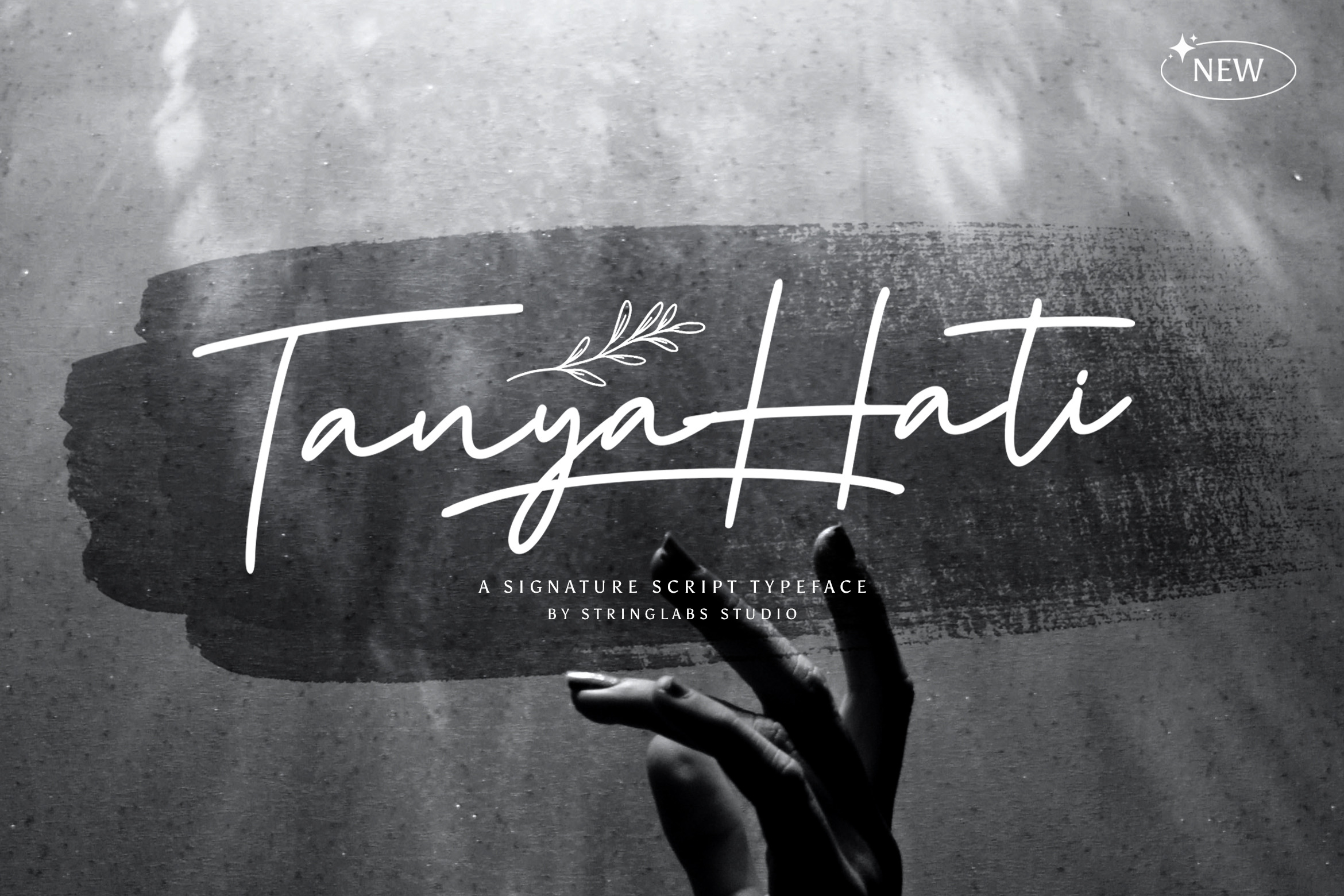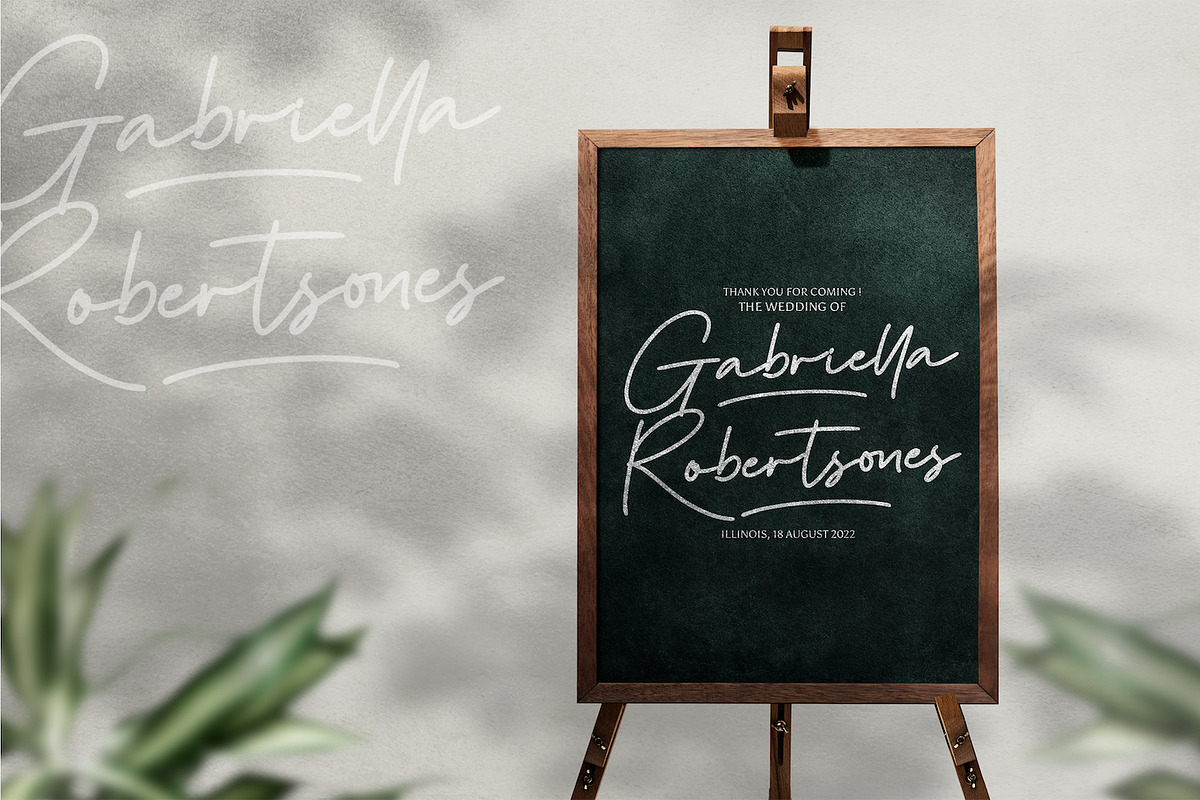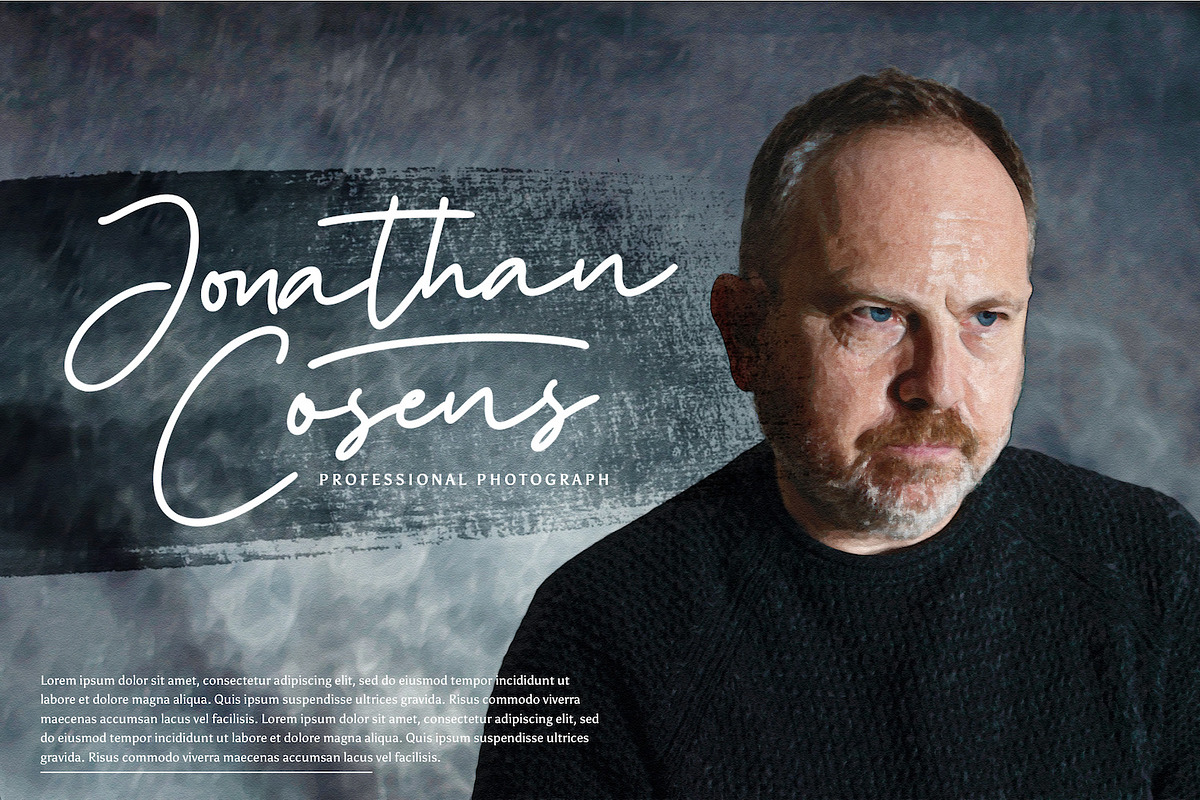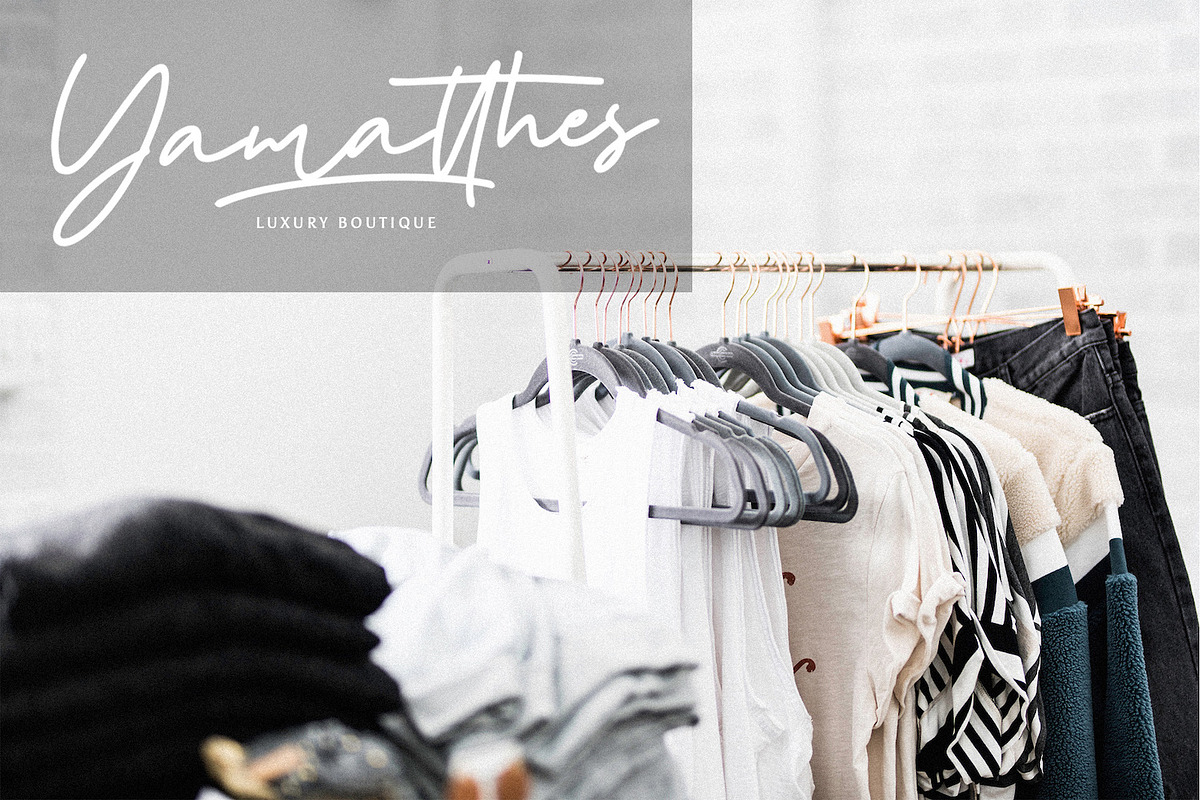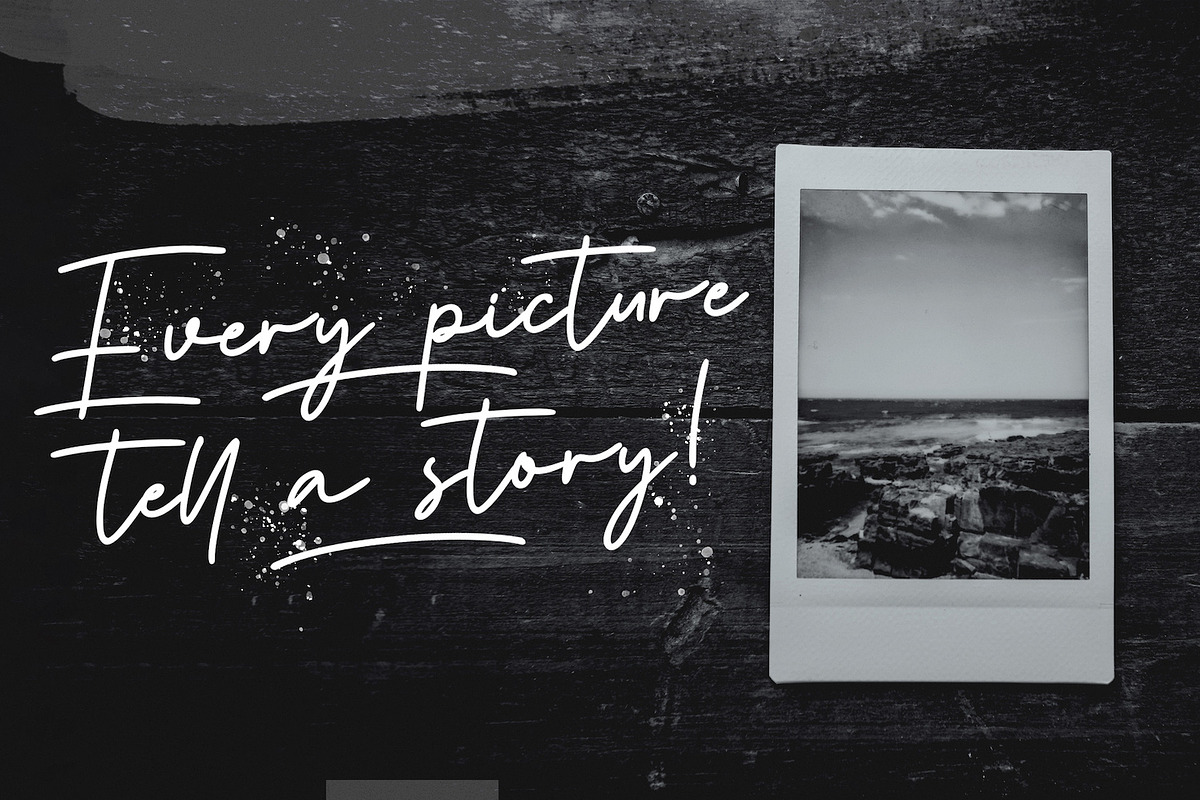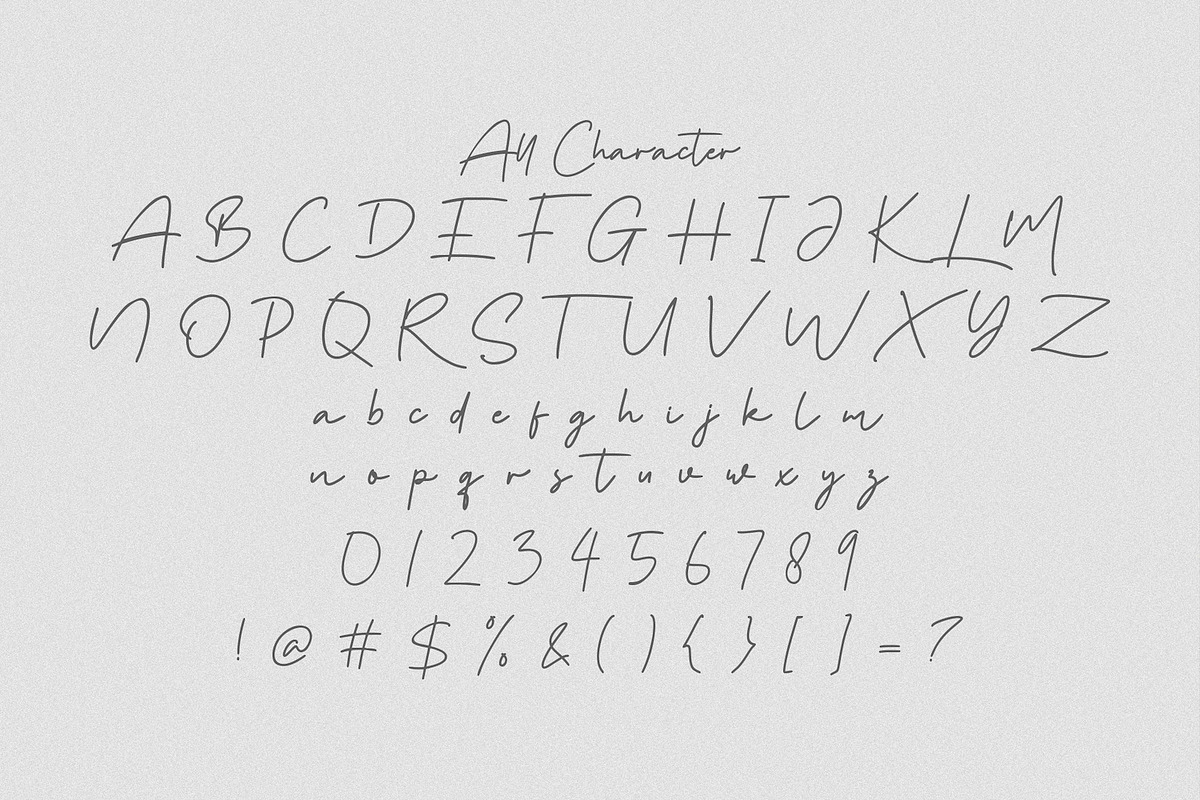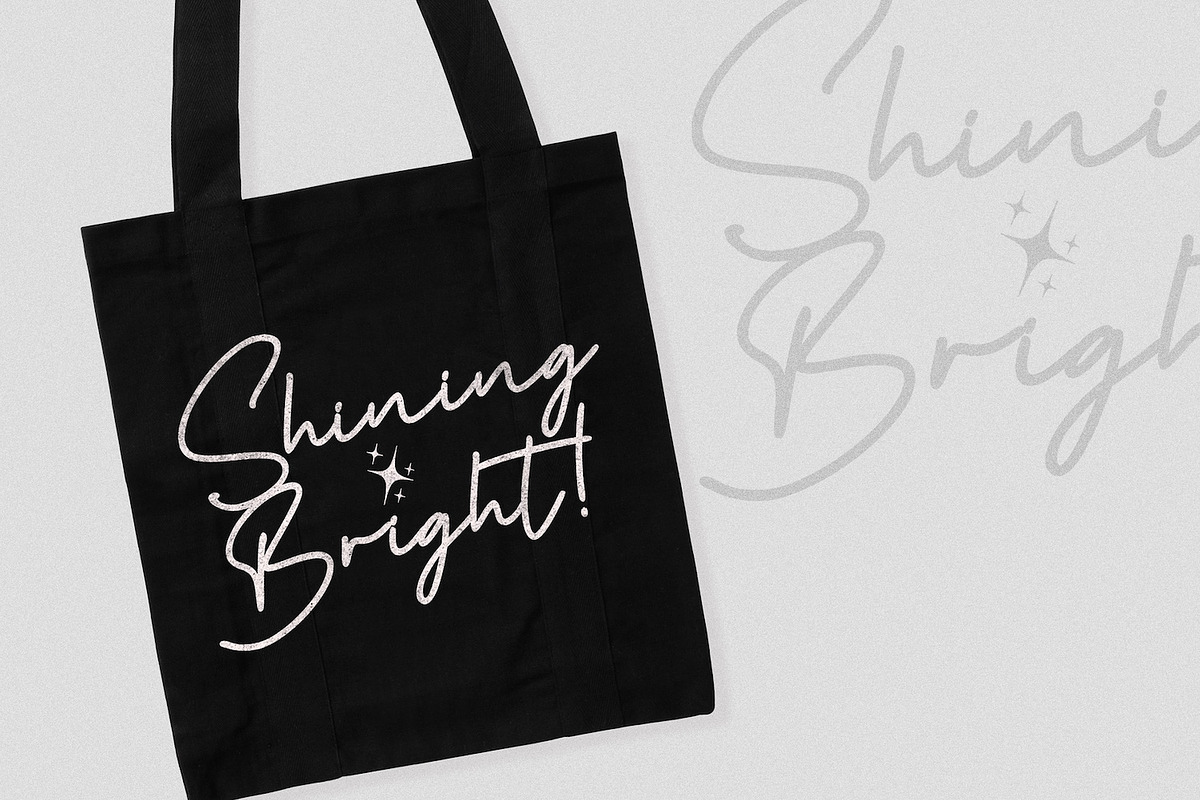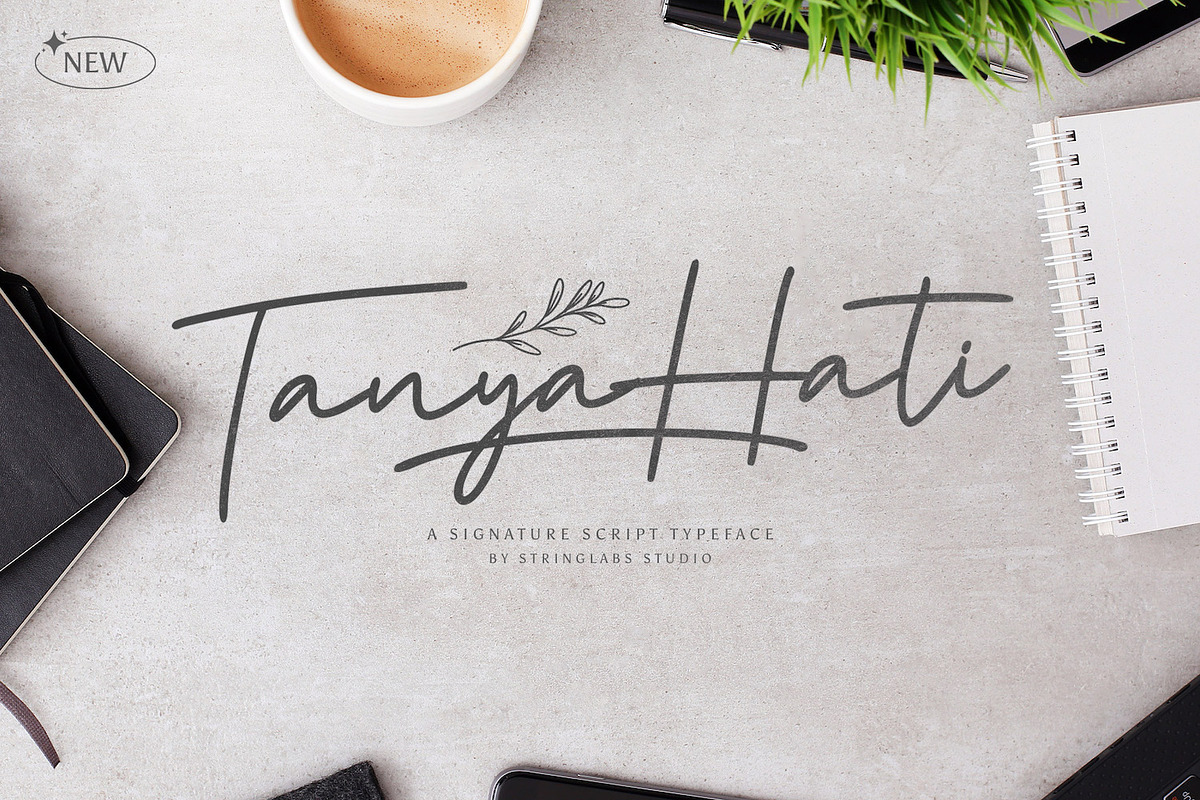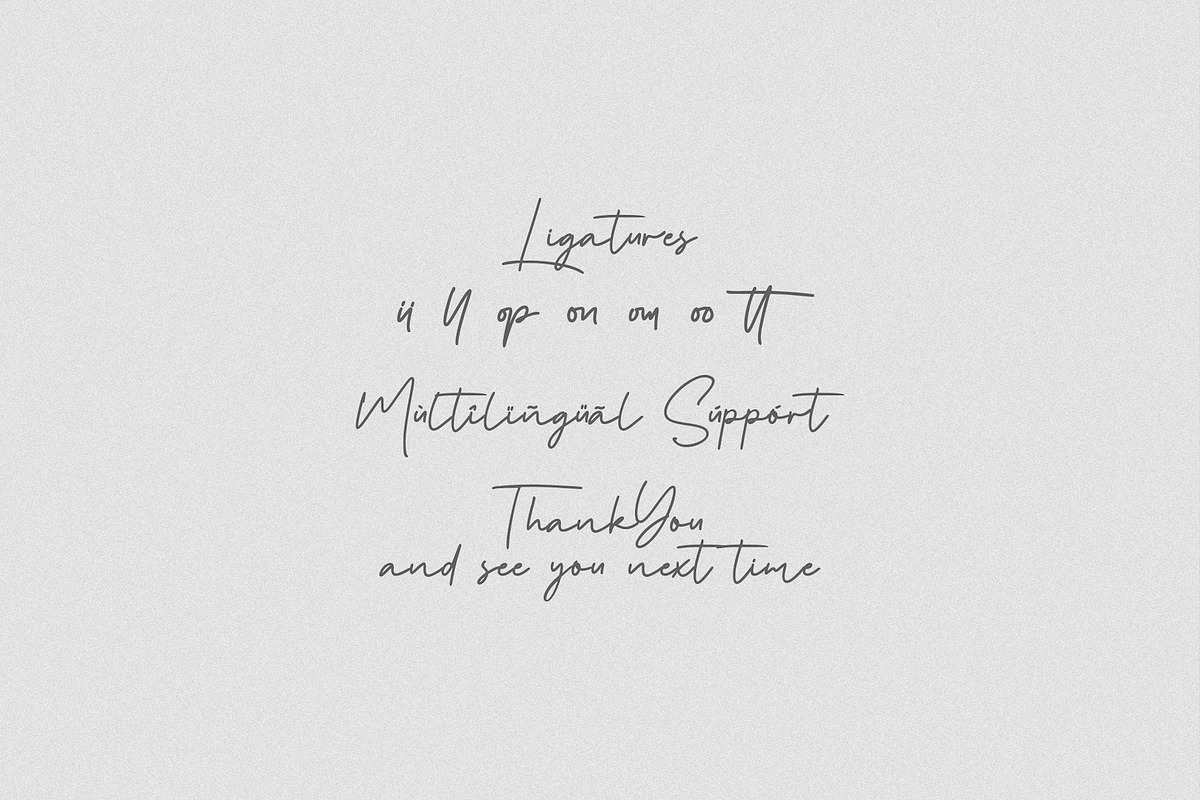
Tanya Hati - Signature Script Font
Introducing Tanya Hati - Signature Script Font
Tanya Hati is a delicate, elegant and flowing handwritten font. It has beautiful and well balanced characters and as a result, it matches a wide pool of designs. Add it to your most creative ideas and notice how it makes them come alive!